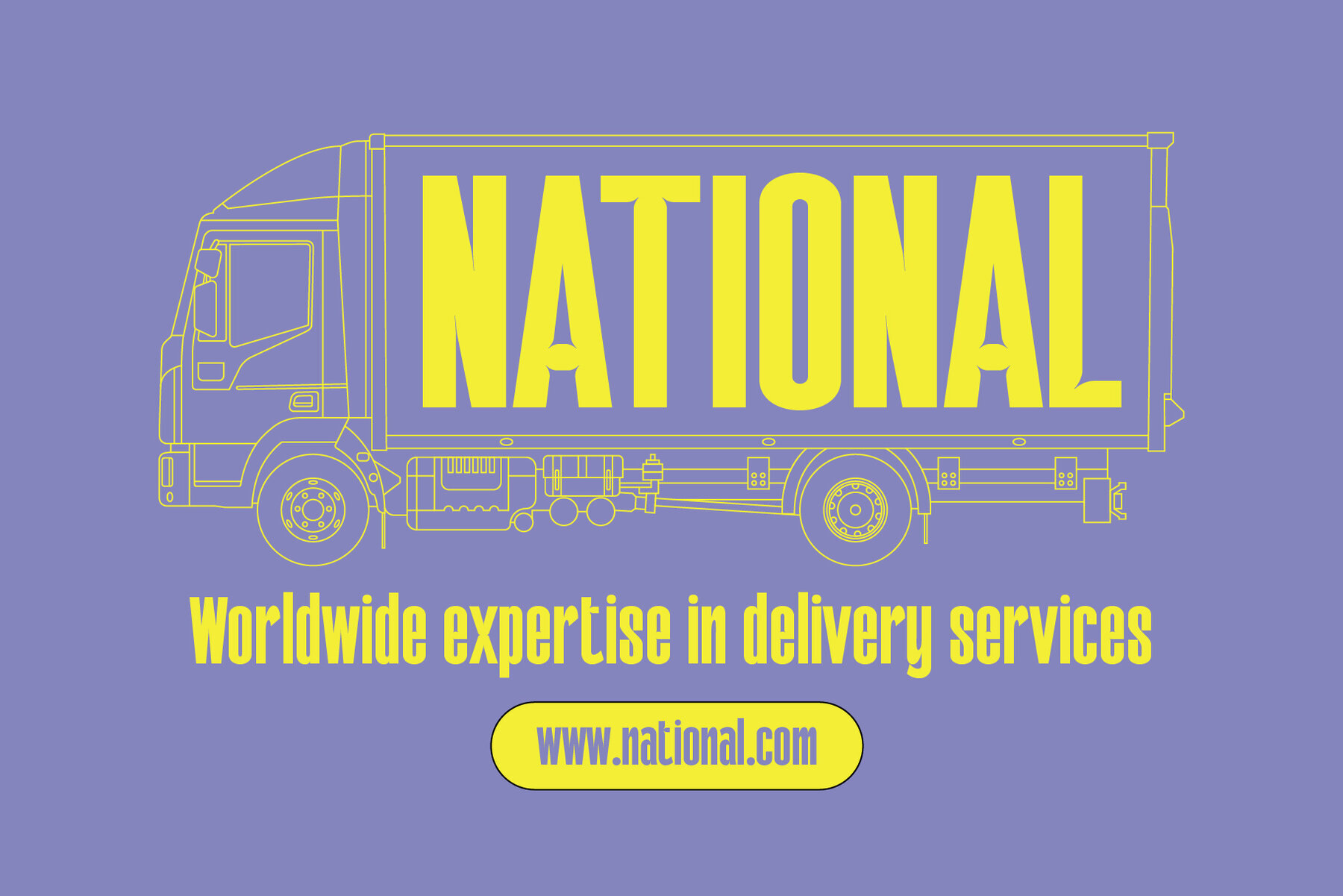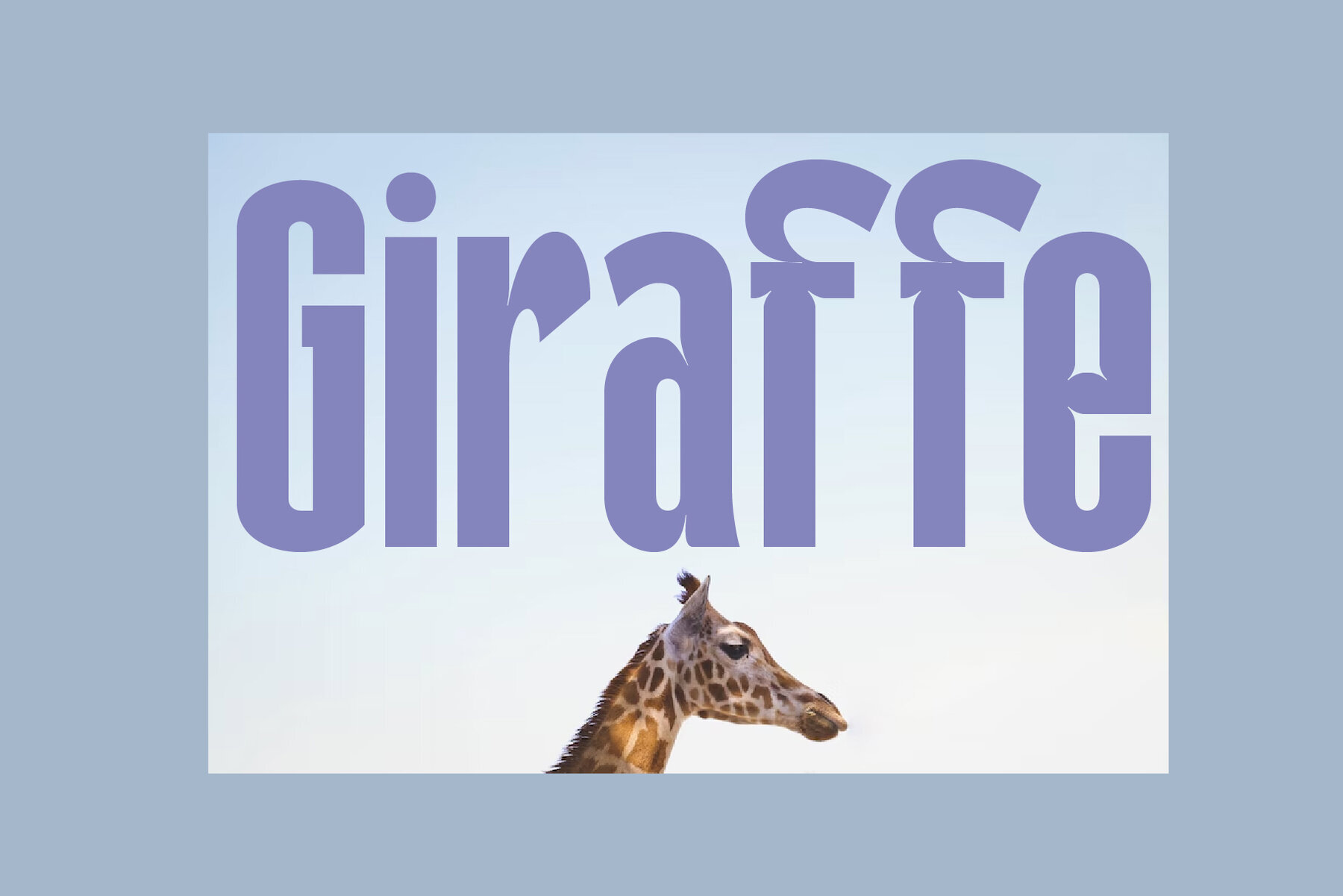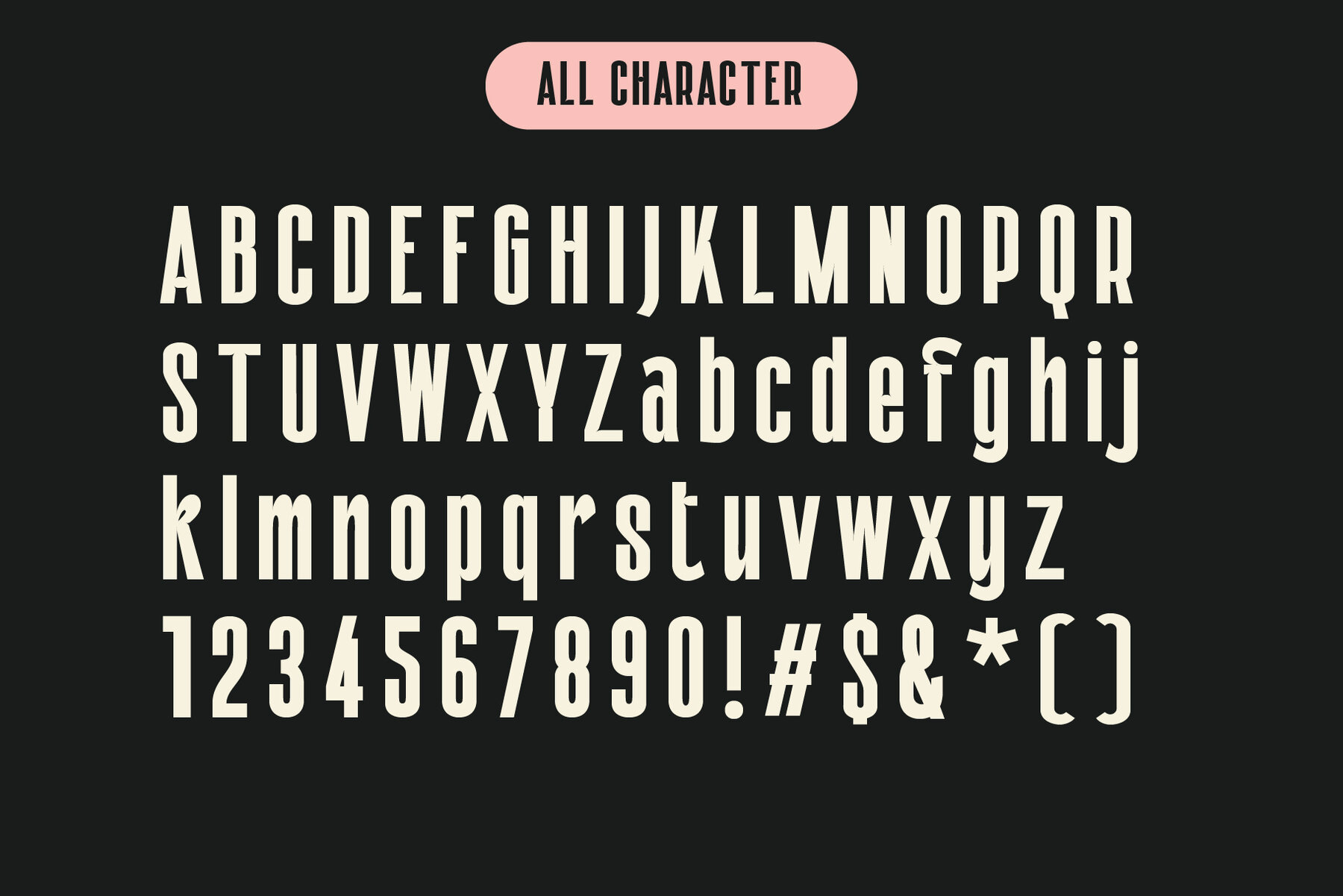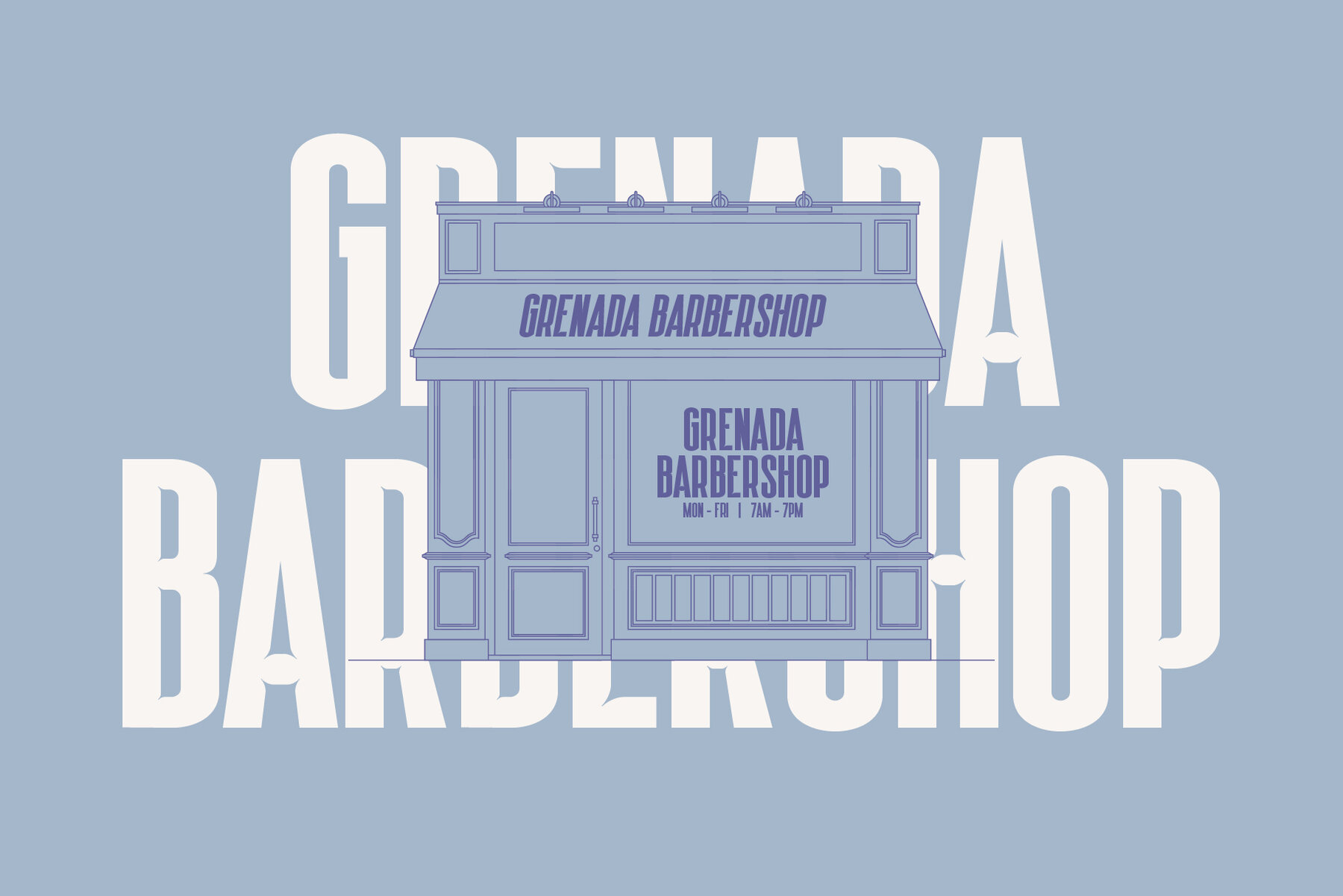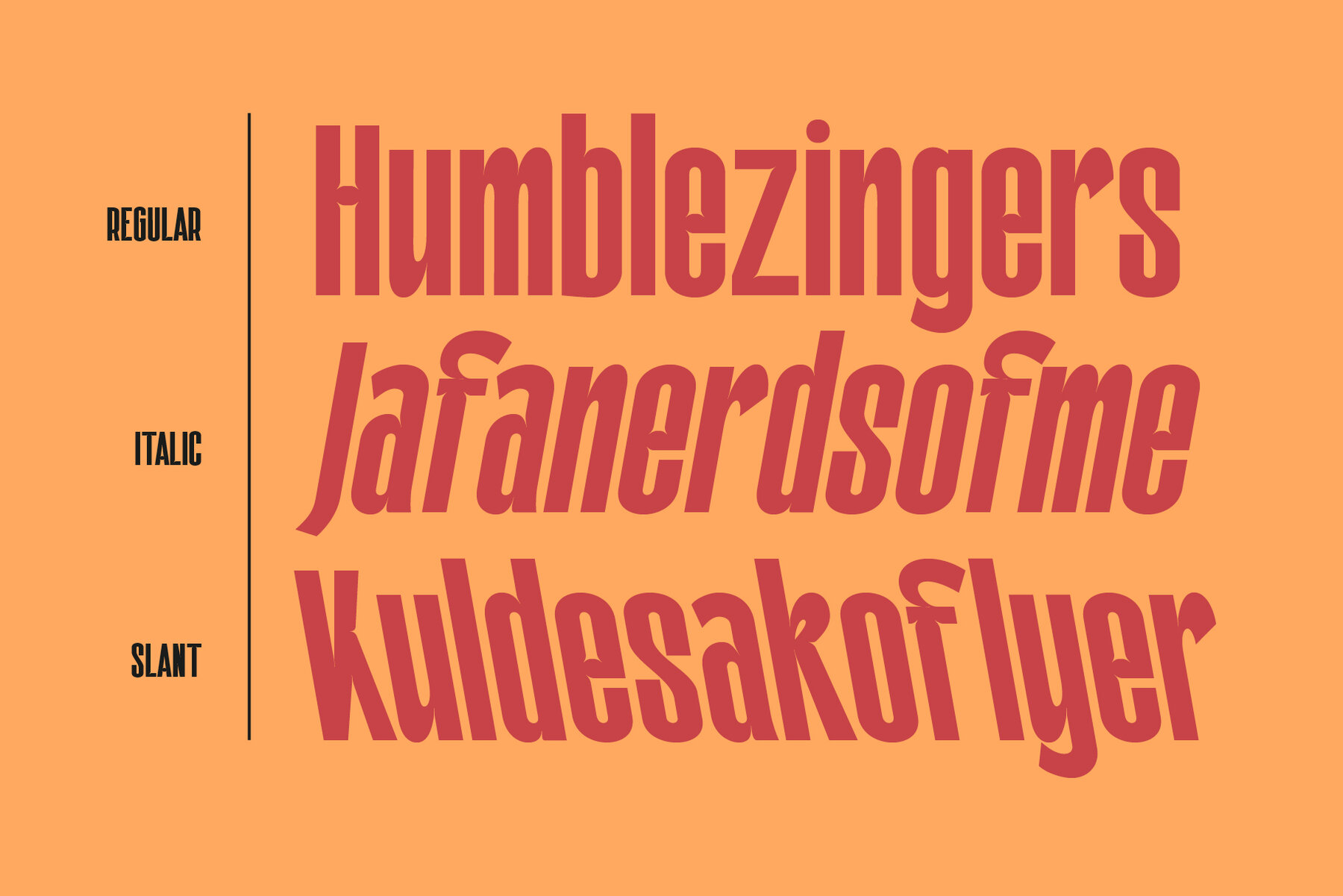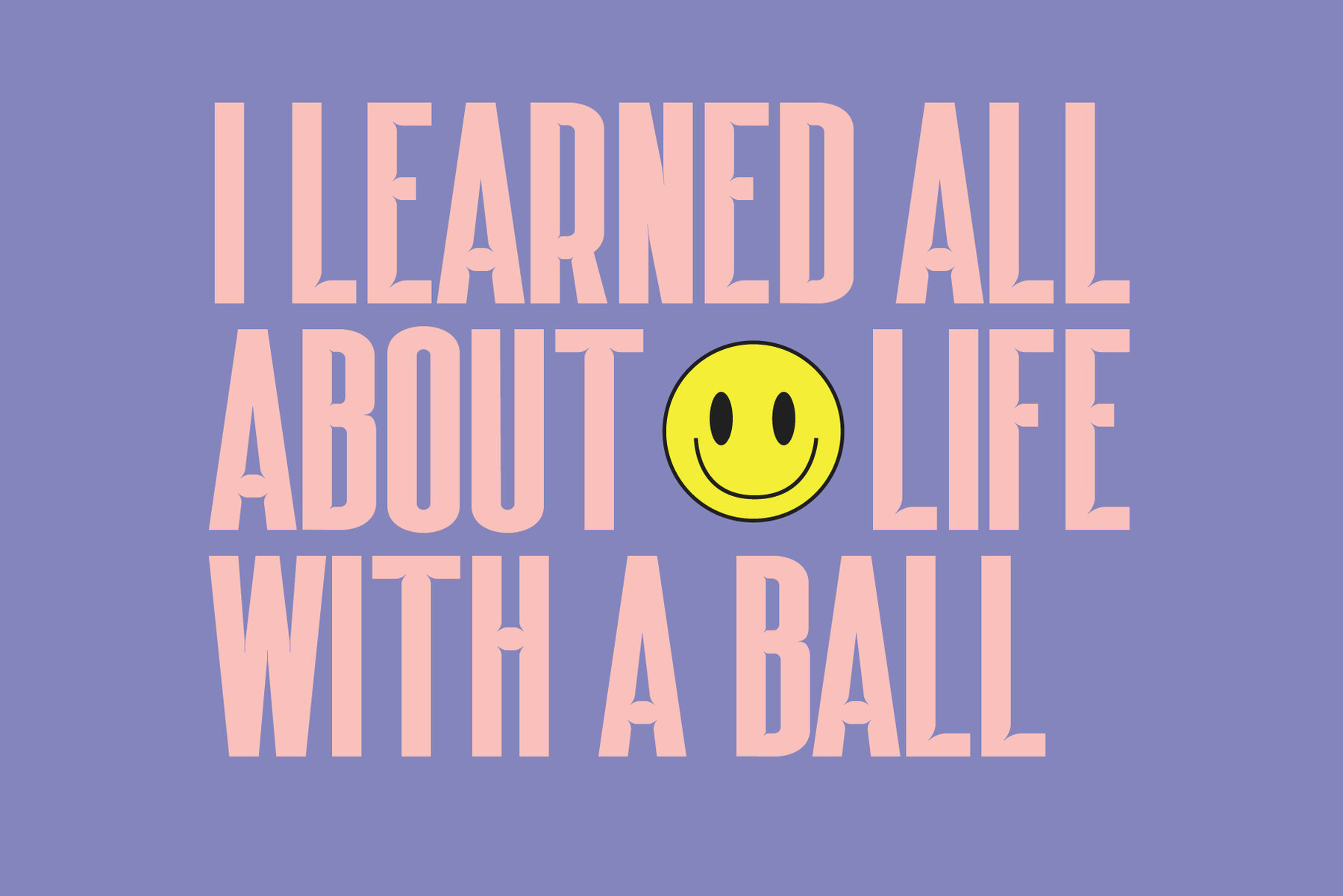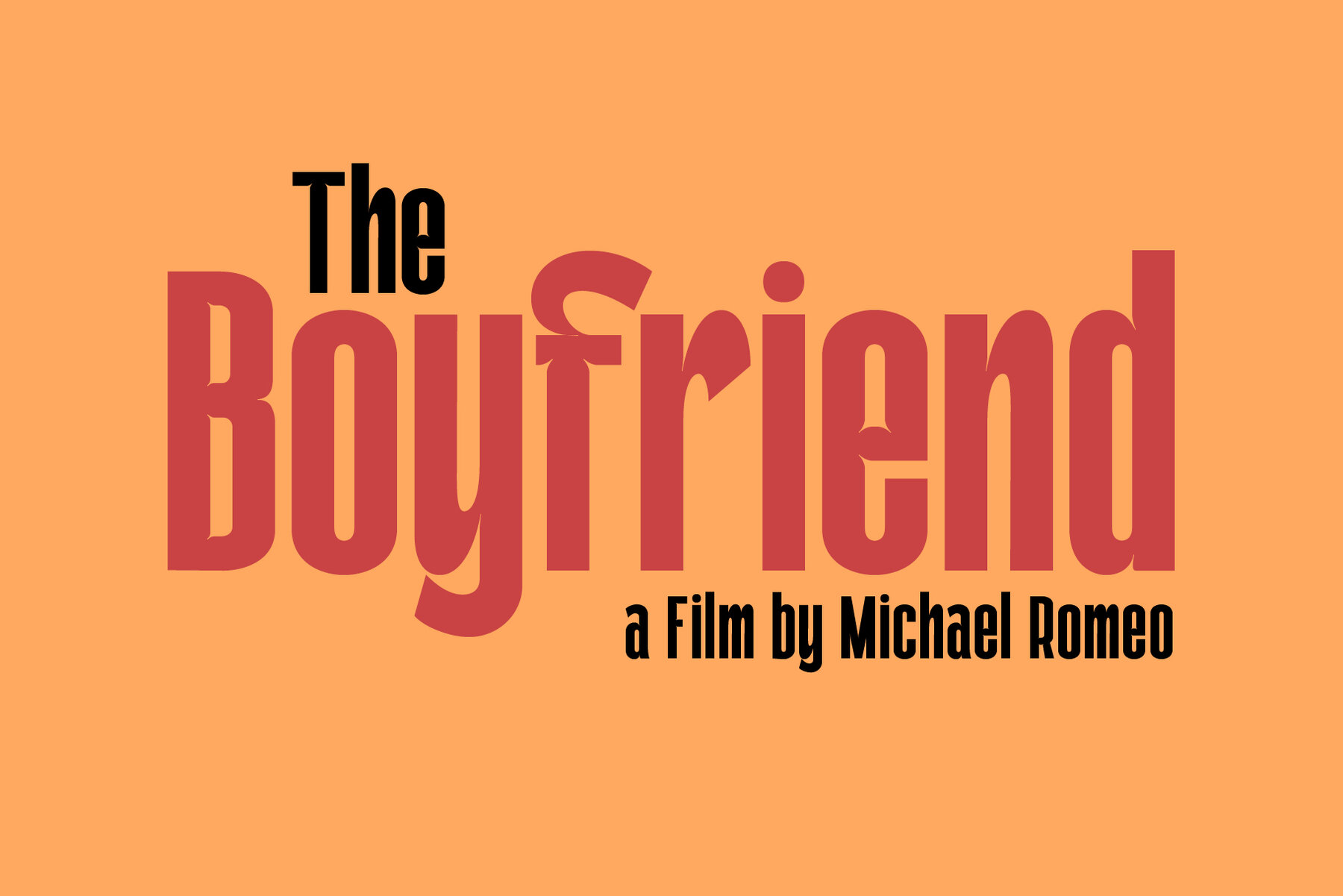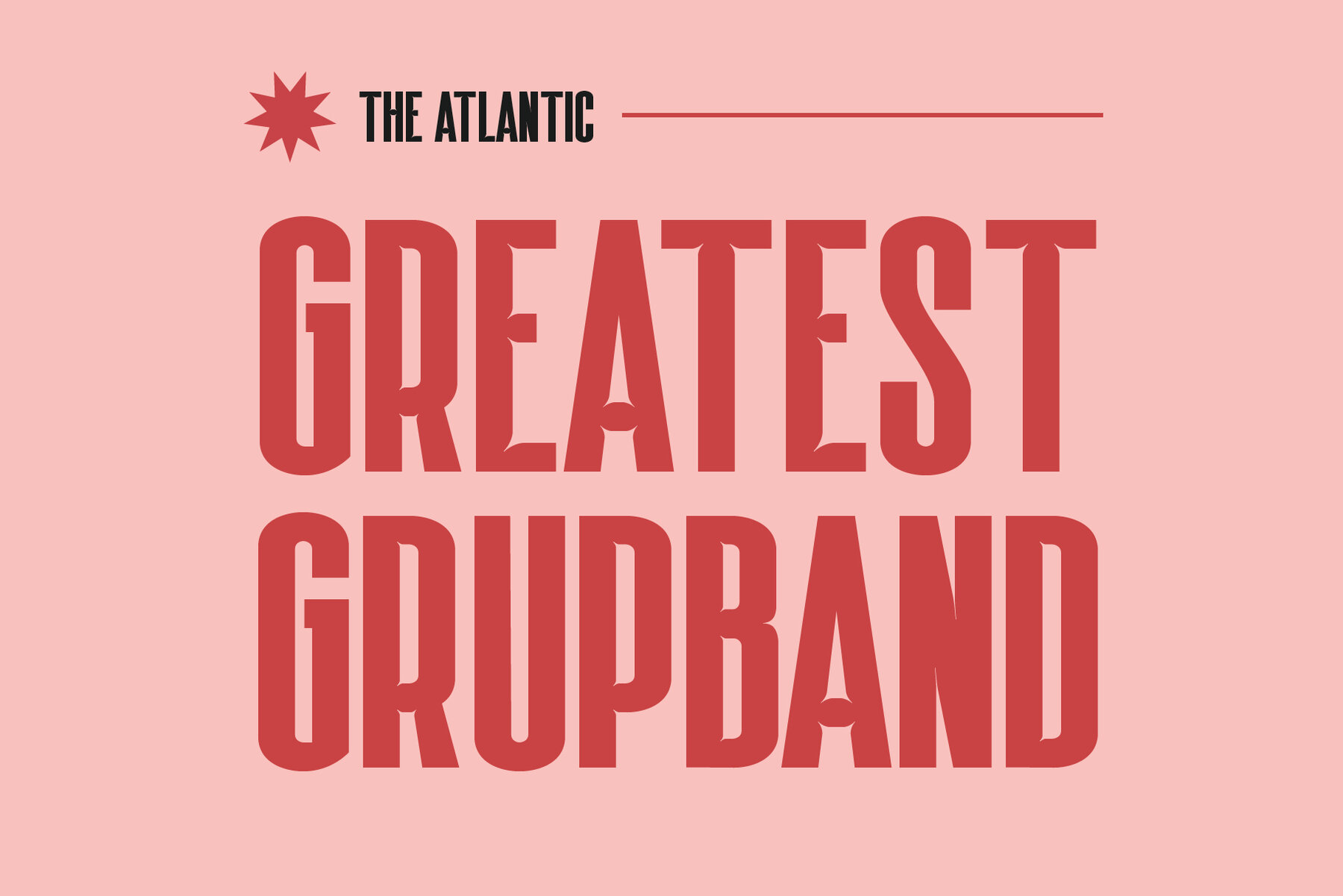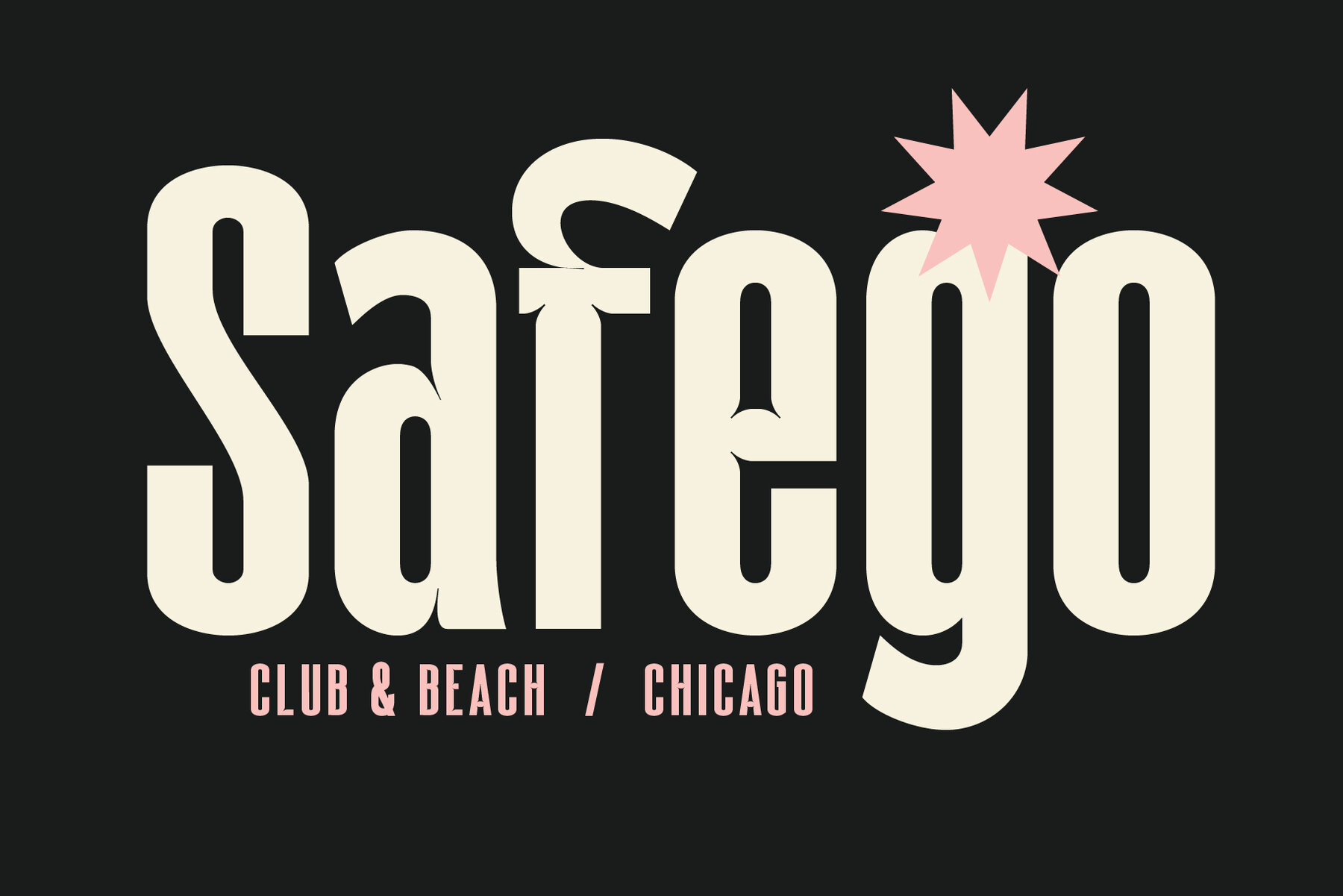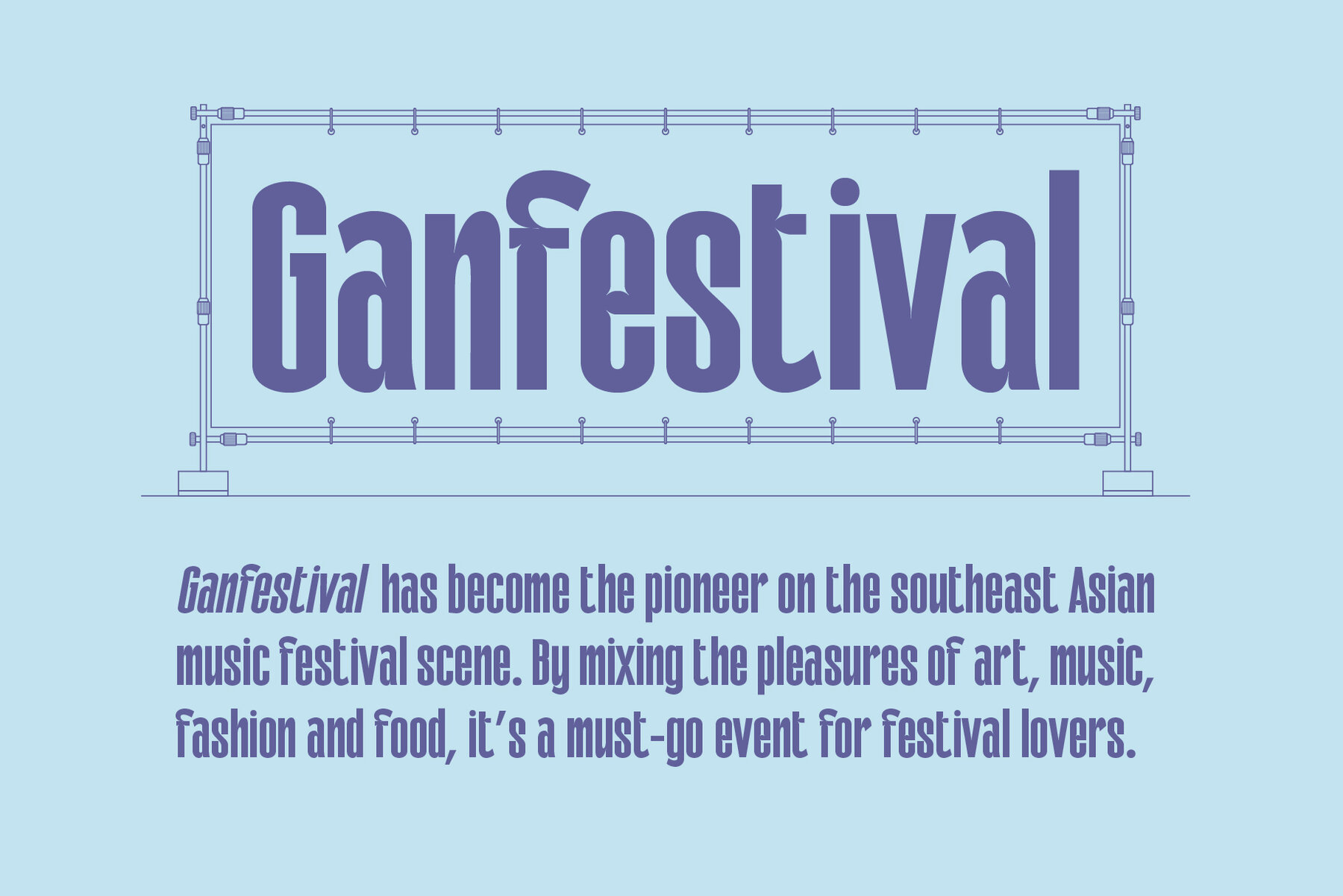
Galfego Font
Galfego condensed sans serif is made with its own unique character and form of typeface. It's going to grab attention from afar, which makes it perfect for large prints or posters where you need people’s focus drawn towards yours quickly.